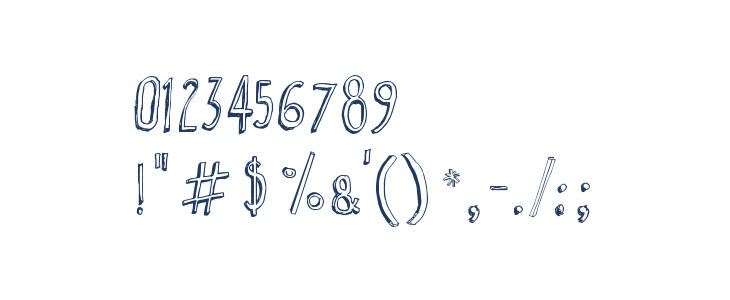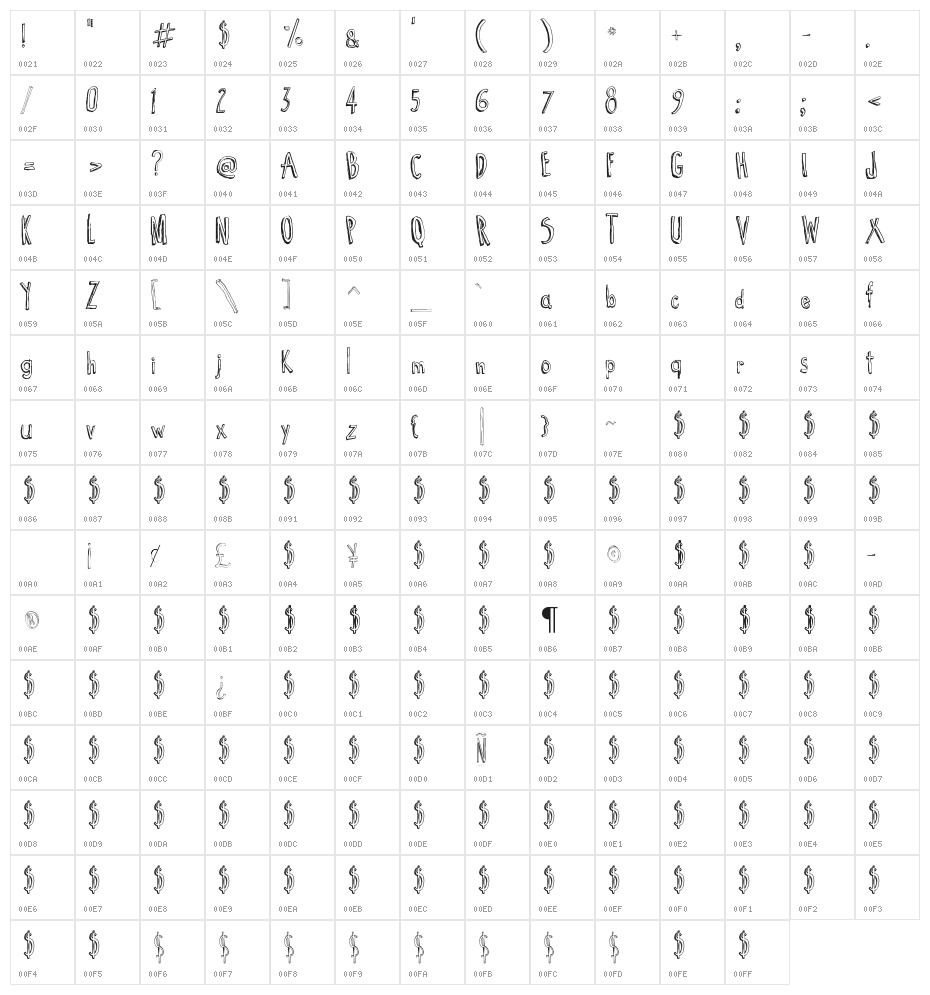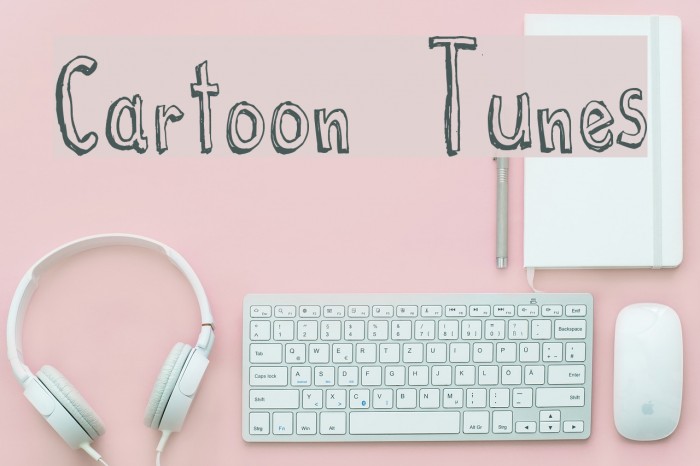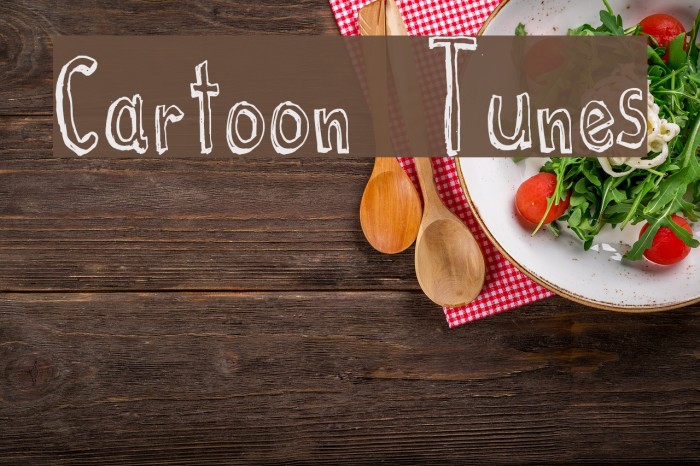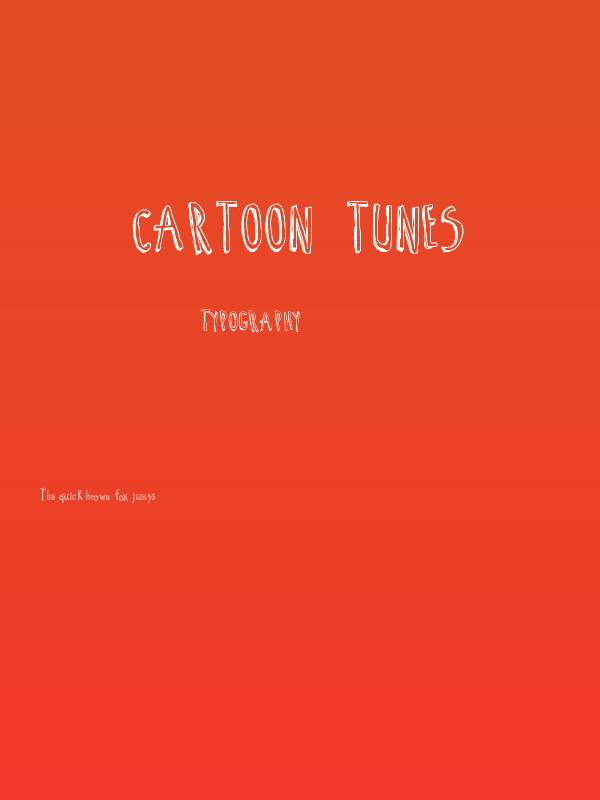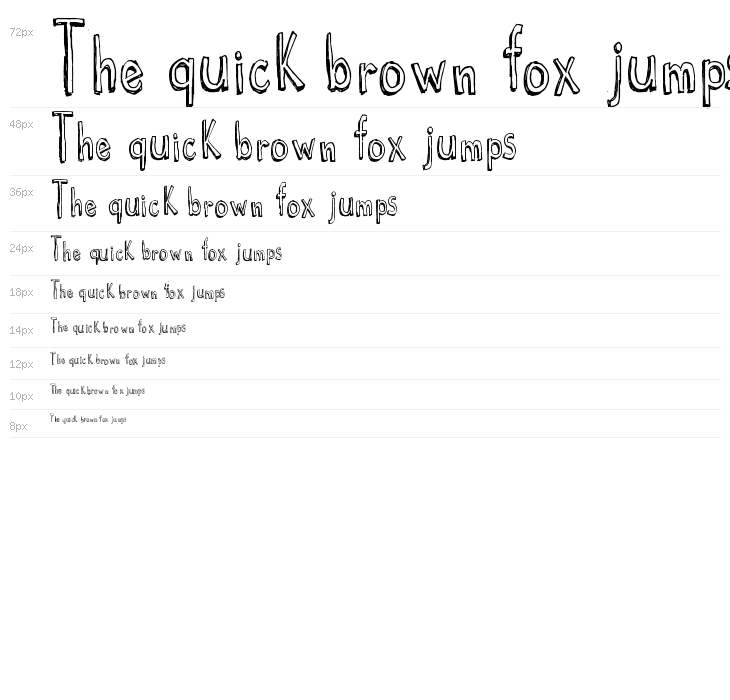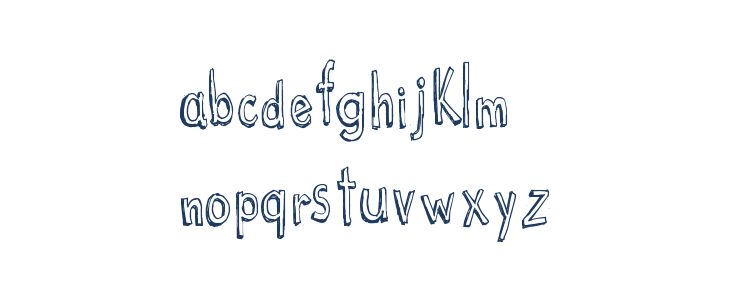
Cartoon Tunes Font
| Stile generale | Whimsical, Playful, Hand-drawn |
| Progetti proposti | Ideal for children's books, comic strips, playful branding, and creative posters. |